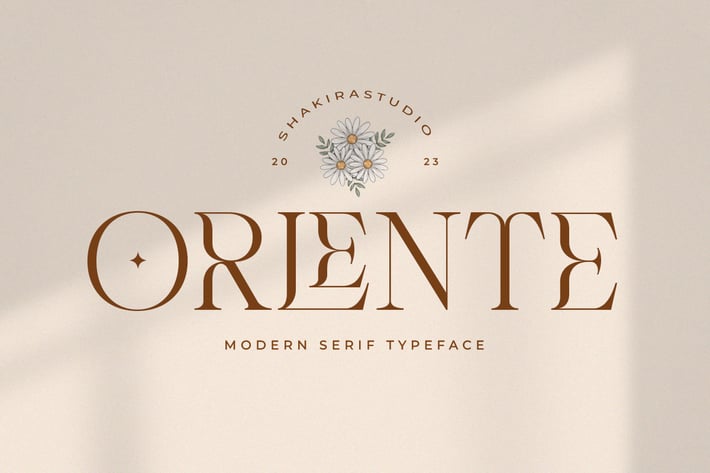
Orlente - Modern Serif Font
Orlente – Redefining Modern Elegance in Serif Fonts
Orlente is more than just a font—it’s a celebration of modern sophistication and timeless luxury. Designed to elevate your typographic expression, this contemporary serif font combines sleek, meticulously crafted curves with opulent alternates and ligatures, making it the perfect choice for high-end branding, editorial design, and luxury projects.
Where Modernity Meets Timeless Luxury
Orlente stands out as a beacon of elegance, offering a rich variety of stylistic features that bring a sense of opulence and finesse to your designs. Whether you’re crafting editorial layouts, creating luxury branding, or designing elegant invitations, Orlente seamlessly blends modern aesthetics with classic sophistication, ensuring your projects leave a lasting impression.
Key Features
- Modern Serif Design – Perfect for luxury branding, editorial projects, and high-end invitations.
- Exquisite Alternates & Ligatures – Add a touch of opulence and individuality to your designs.
- Meticulously Crafted Curves – A harmonious blend of modernity and timeless elegance.
Elevate Your Designs with Orlente
Orlente isn’t just a font—it’s a dynamic expression of modern elegance and luxury. Whether you’re designing for print, digital, or branding, this font ensures your projects radiate sophistication and style.